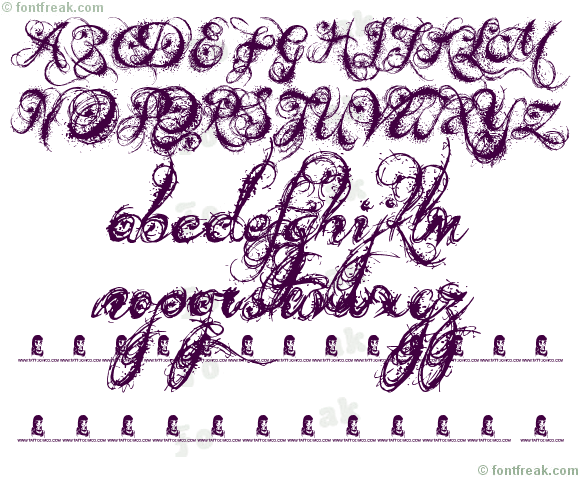
Angels Message
The Angels Message font by Jonathan S. Harris is a captivating display typeface that combines the elegance of handwritten script with a decorative flair. This font showcases a unique visual style characterized by its intricate strokes and artistic embellishments. The stroke weight varies throughout the letters, creating a dynamic contrast that enhances its expressive quality. The spacing is thoughtfully designed, allowing for fluidity in the text while maintaining readability. Decorative elements, such as flourishes and swashes, add a whimsical touch, making it perfect for projects that require a personal and artistic feel.
The Angels Message font finds its best use in a variety of creative applications. It is particularly suitable for wedding invitations, where its romantic style can evoke a sense of love and intimacy. Additionally, it works beautifully for movie posters, especially in genres that emphasize fantasy or adventure, as its enchanting design draws the viewer's attention. Restaurant menus can also benefit from this font, providing a unique touch that reflects a creative dining experience. Furthermore, it is an excellent choice for branding materials, especially for small businesses wanting to convey a distinct personality.
The target audience for the Angels Message font includes graphic designers, small business owners, and content creators seeking a unique typeface that stands out. Its artistic nature appeals to those looking to add a personal touch to their projects.
What sets the Angels Message font apart is its ability to convey emotion and creativity through its artistic design. This font not only enhances the visual appeal of any project but also resonates with audiences on a deeper level, making it a valuable addition to any designer's toolkit. For those interested, the Angels Message font free download offers an opportunity to incorporate this beautiful typeface into various creative endeavors.